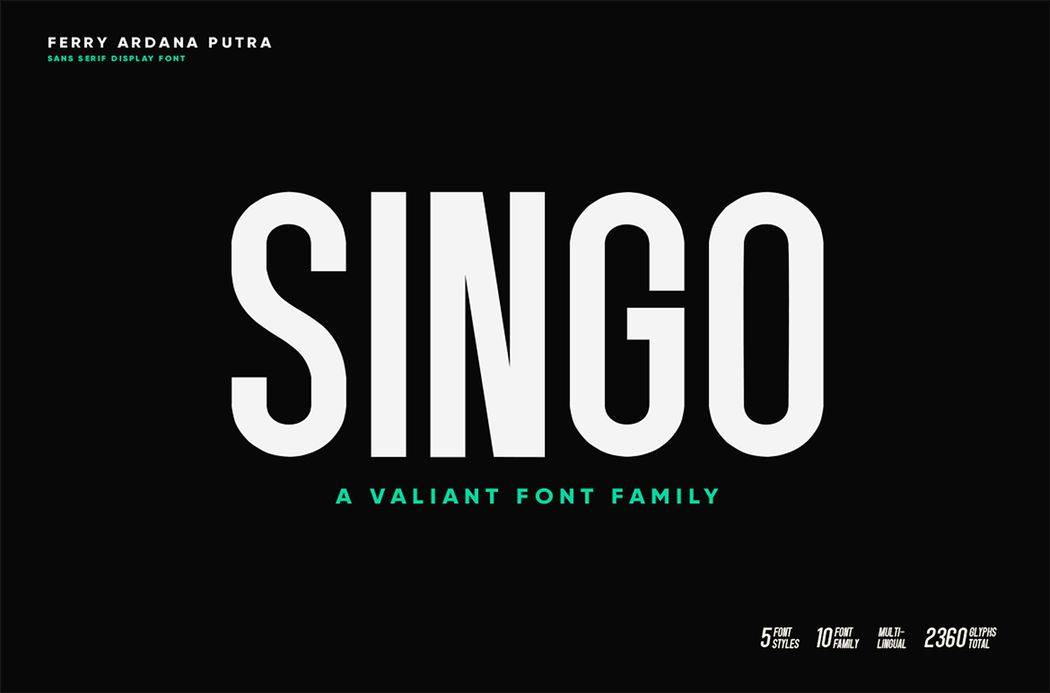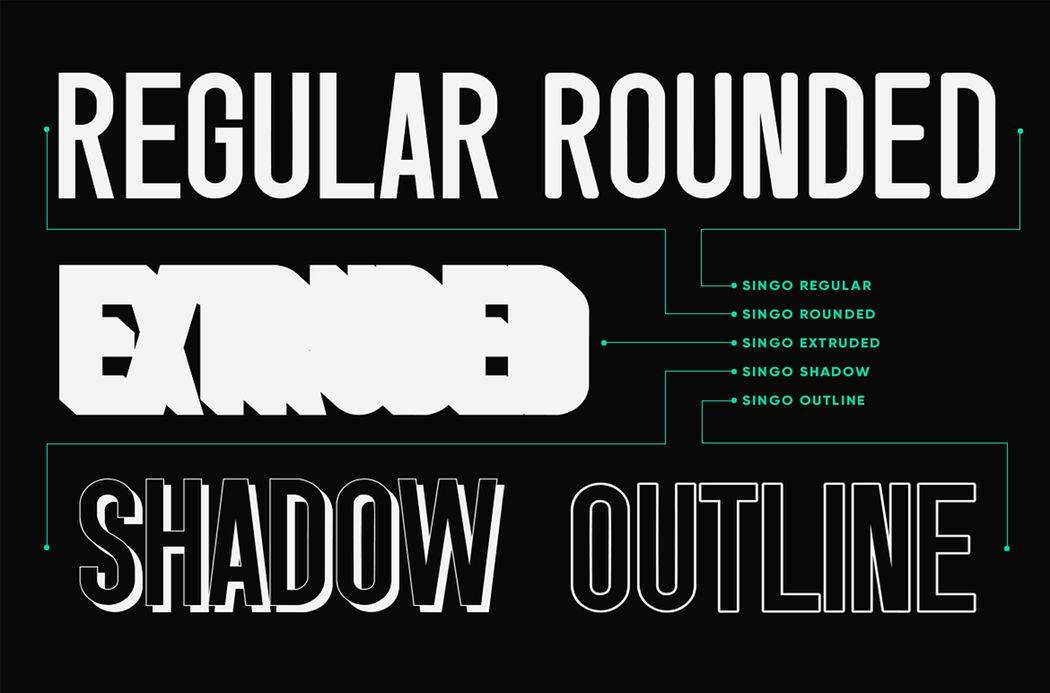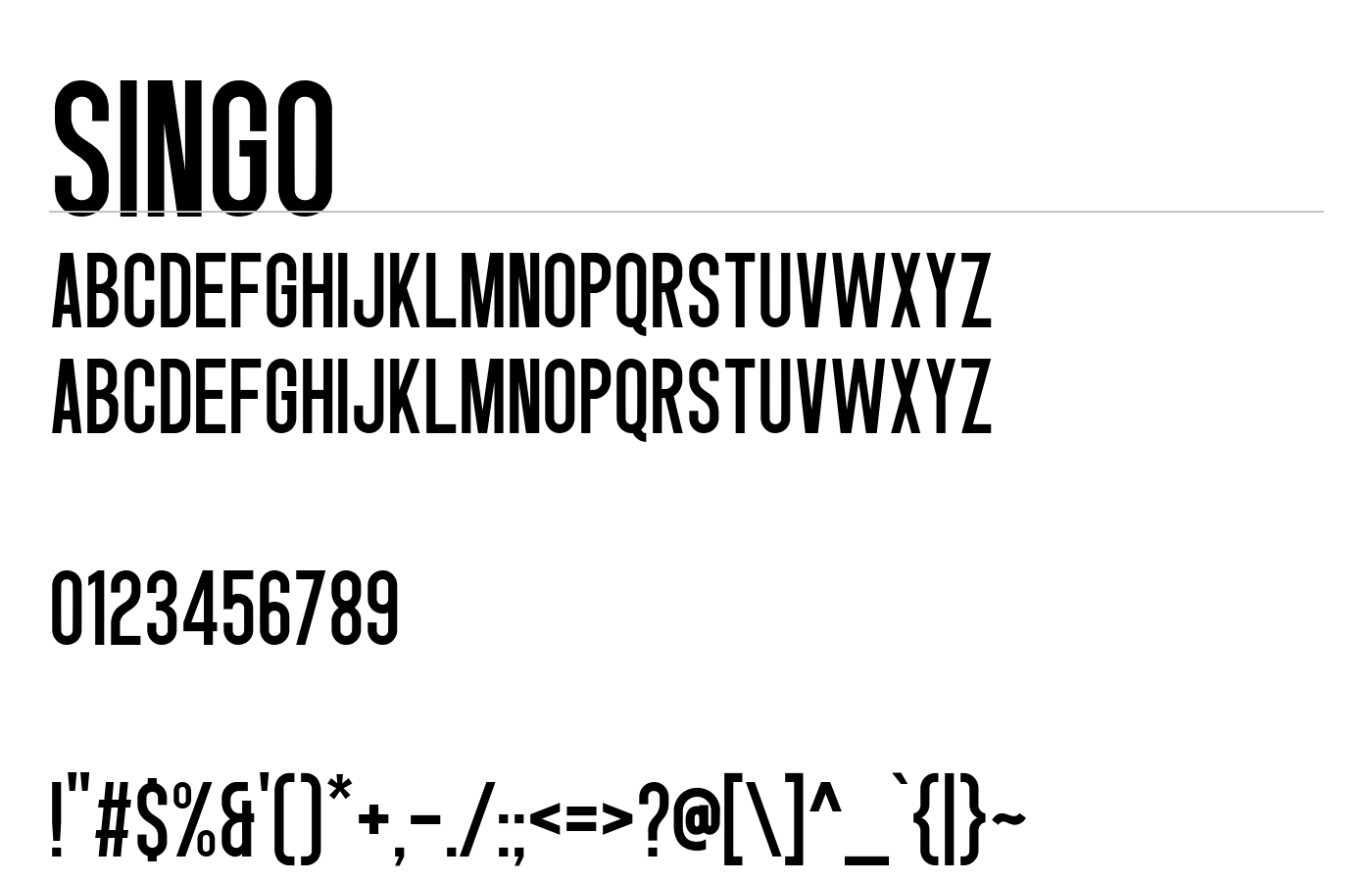
Singo is a bold, condensed sans-serif font with a strong vertical emphasis and clean, modern lines. Its tall letterforms and uniform stroke width create a sleek, authoritative feel that works especially well for headlines, logos, and branding where a confident, contemporary look is desired. This versatile font adds a professional, urban edge to designs while maintaining excellent readability.
Singo Font
About Singo Font
| Designer | Ferry Ardana Putra |